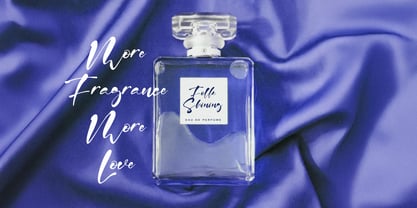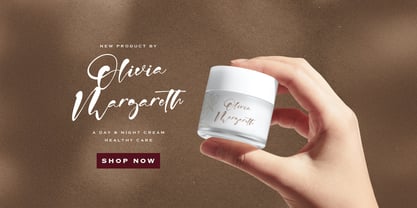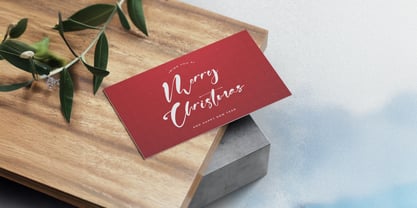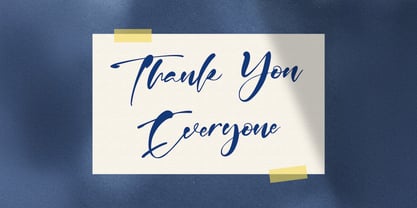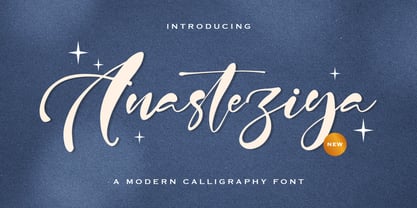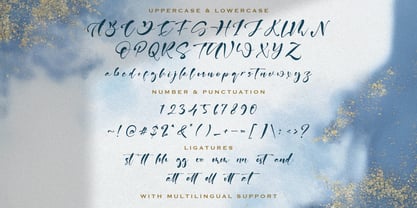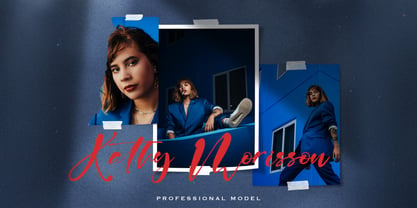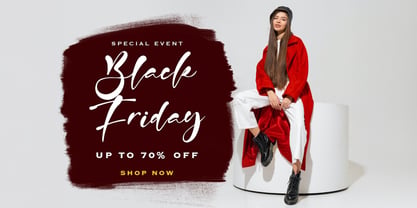
La familia tipográfica Anasteziya fue diseñada por Virgiawan Listanto y publicada por Stringlabs Creative Studio. Anasteziya contiene 1 estilos. Más información sobre esta familia
Introducing Anasteziya, a luxurious calligraphy font that blends timeless elegance with modern flair. With its flowing strokes, graceful curves, and romantic character, Anasteziya brings a sophisticated handwritten touch to your designs. Perfect for wedding invitations, fashion branding, elegant logos, or heartfelt quotes, this font creates an effortlessly refined aesthetic. Each letter is crafted to bring beauty and emotion into every word.
Anasteziya